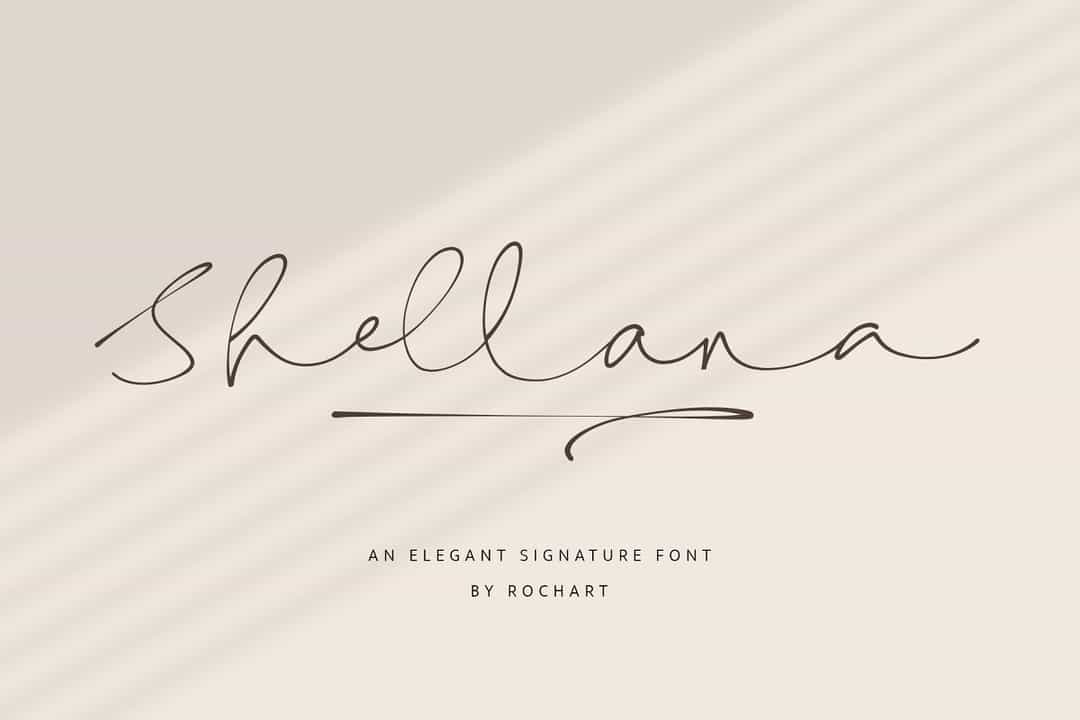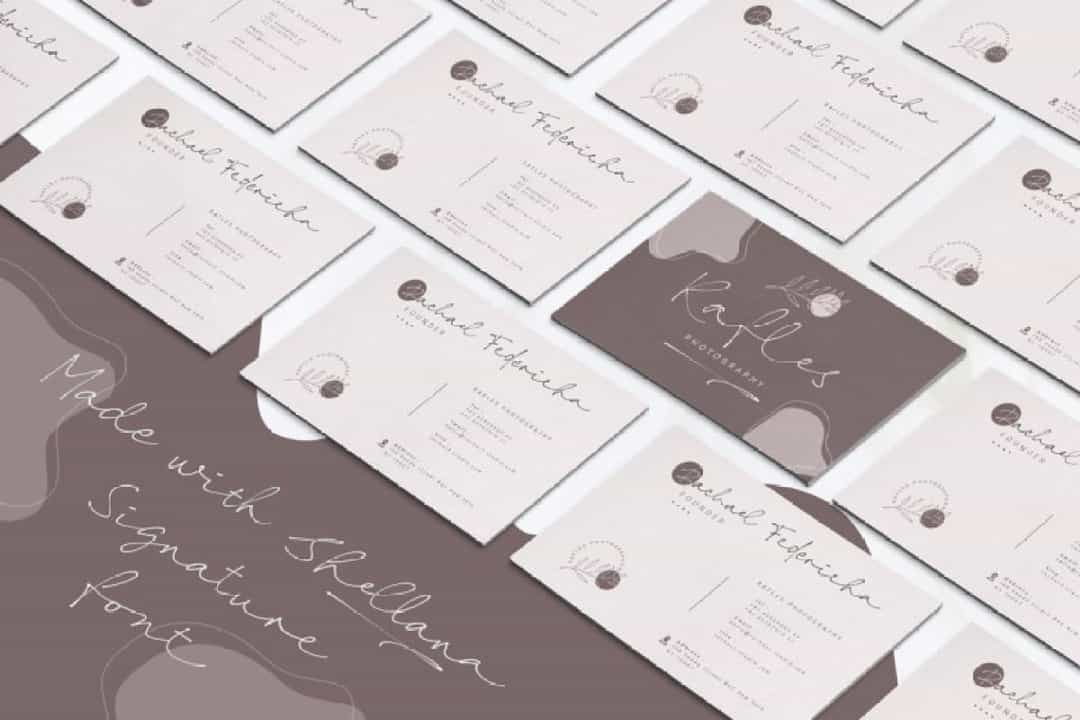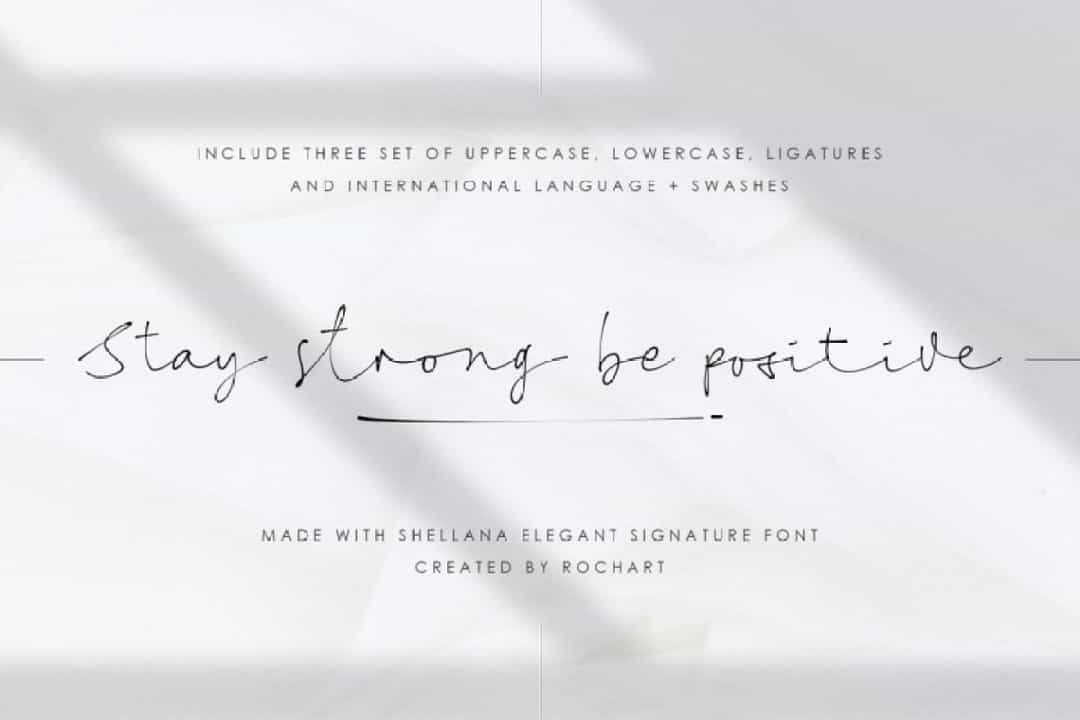
Shellana Signature Script Font is a perfect font for the following use; signatures logos, typography quotes, book or magazine cover, web headers, branding clothing, and packaging design projects involving branding of clothing or packaging.